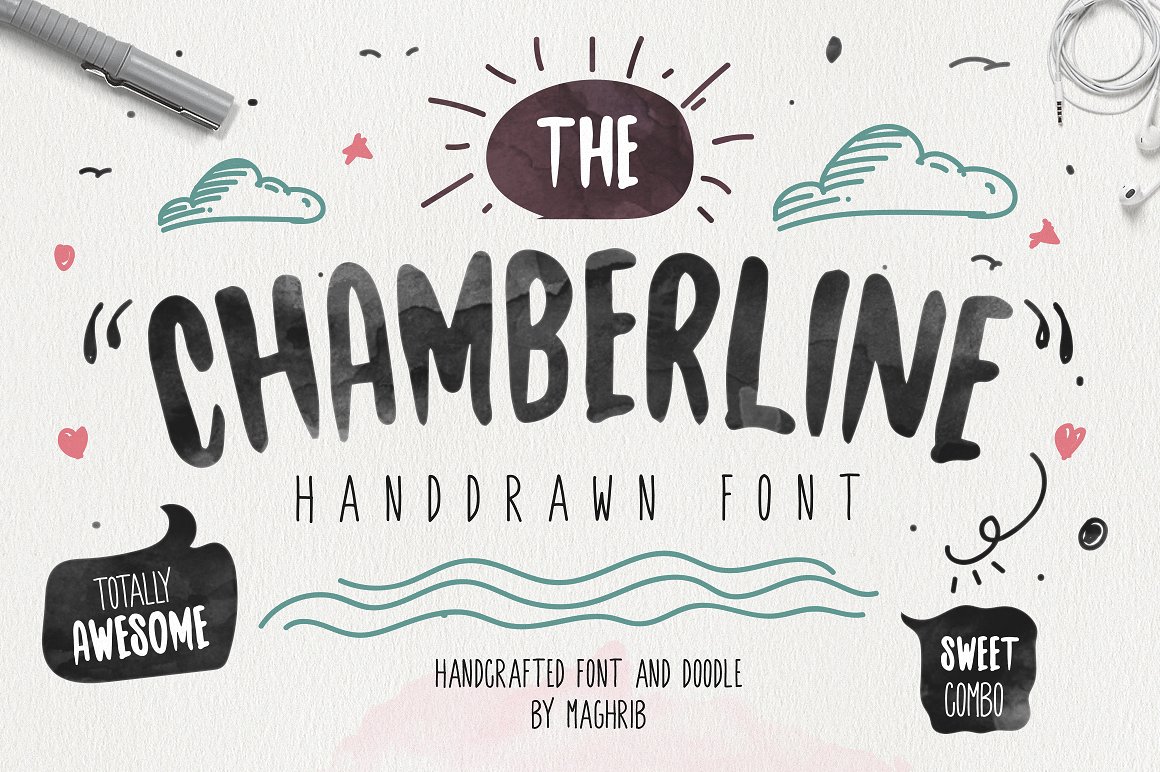
Chamberline & Doodle Vector
Chamberline & doodle vector is a lovely handlettering, It contains three different hand drawn With this set and a little bit of love and care it is possible to create beautiful “handmade” graphics.